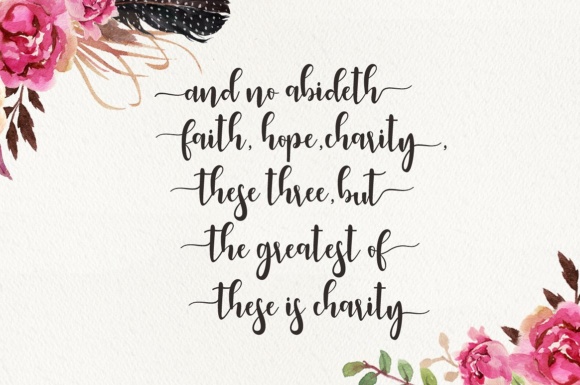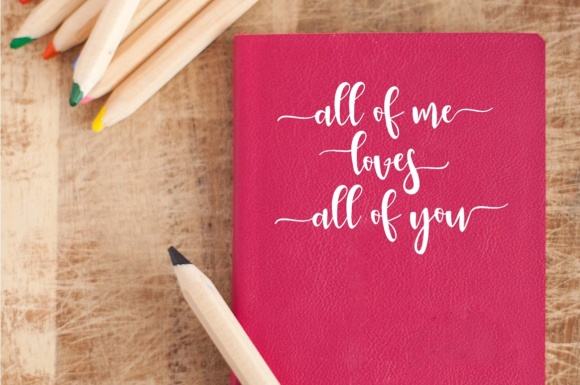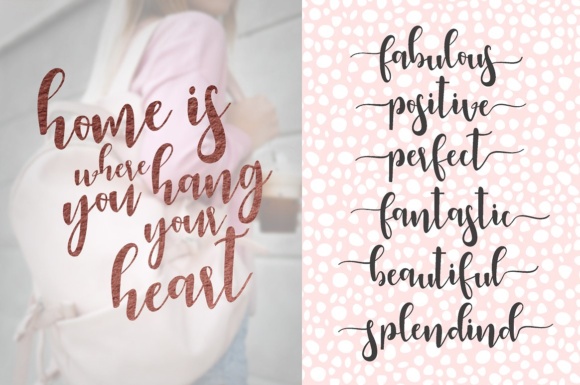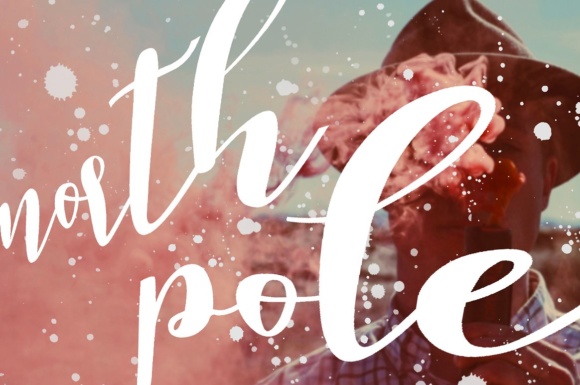
Magnificient Font
About Magnificient Font
Magnificient is a beautiful font, ideal for use in modern romantic project types. This font has an irregular look to it, and has a great weight for displays and headlines that necessitate a touch of romance and style.